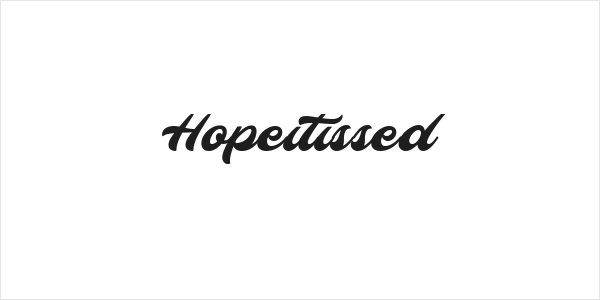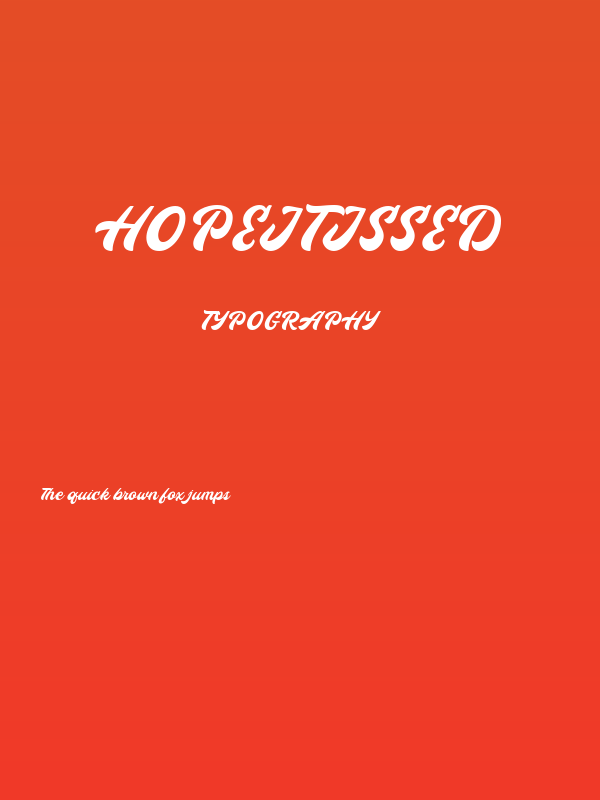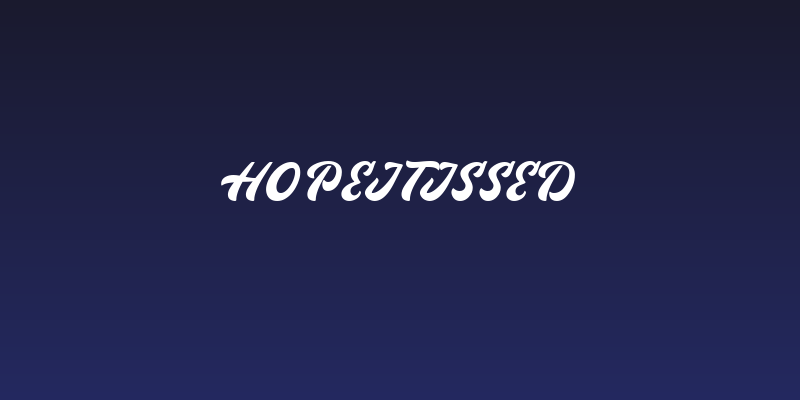
Hopeitissed Font
Hopeitissed Description
This font features a bold, flowing script style with a strong emphasis on smooth, rounded curves and elegant strokes. The uppercase letters are particularly striking, with sweeping lines that convey a sense of movement and grace. The lowercase letters maintain a consistent flow, complementing the uppercase with their rounded forms and connected strokes. Numbers and special characters are designed to match the overall aesthetic, ensuring a cohesive look across all text. The font's design is both classic and modern, making it versatile for various applications.
| Proposed Projects | Ideal for wedding invitations, branding, logo design, and elegant packaging. |